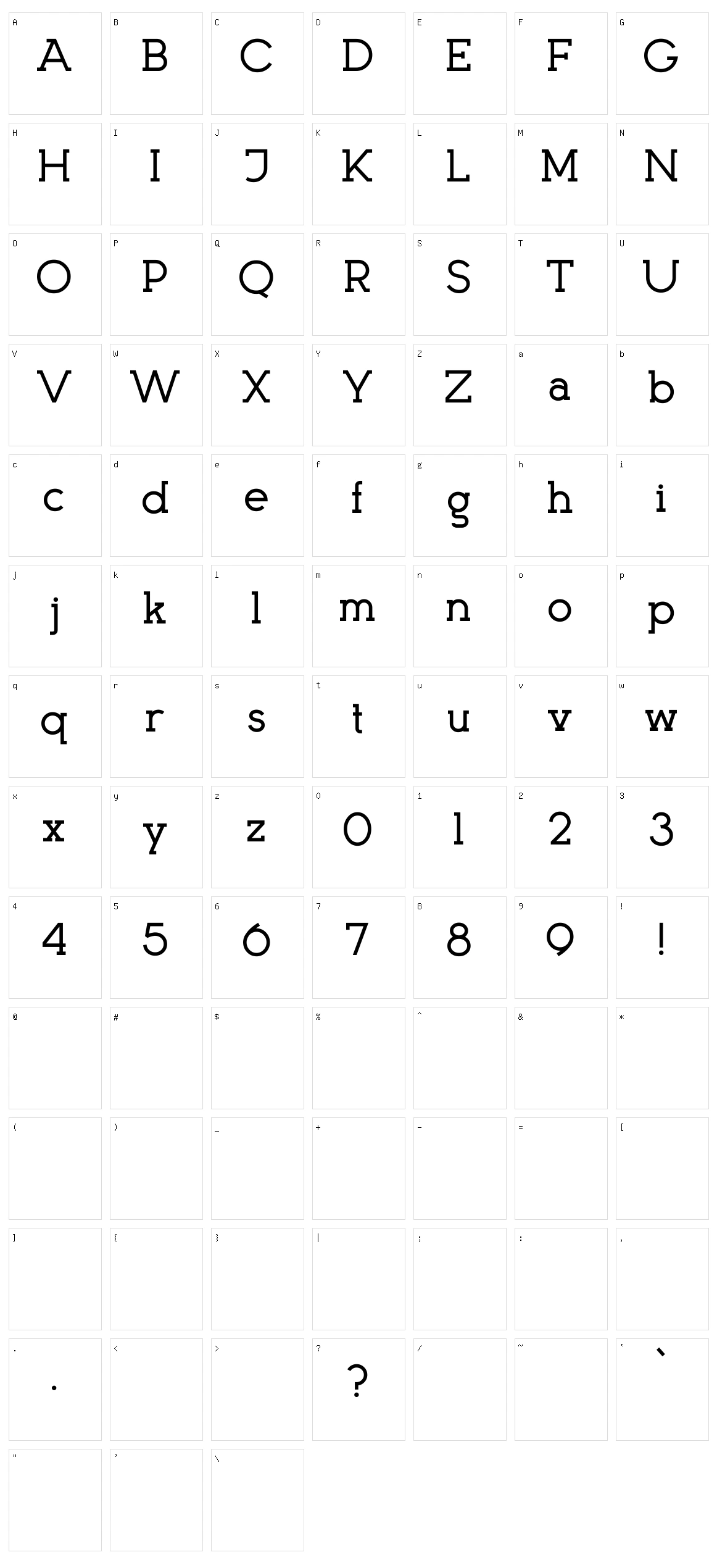
Kingsmen
Designed by: Sharkshock
Category: Serif
Kingsmen is a classic styled slab serif loosely based on fonts found on posters of the 19th century. The geometric design is modeled closely around circles with no variation in stroke
width. Because of this it will make an attractive display font perfect for logos, slogans, and headlines. The serifs do change slightly to give Kingsmen a unique look. Basic Latin,